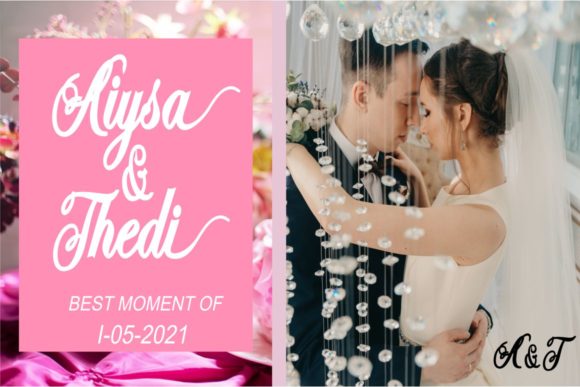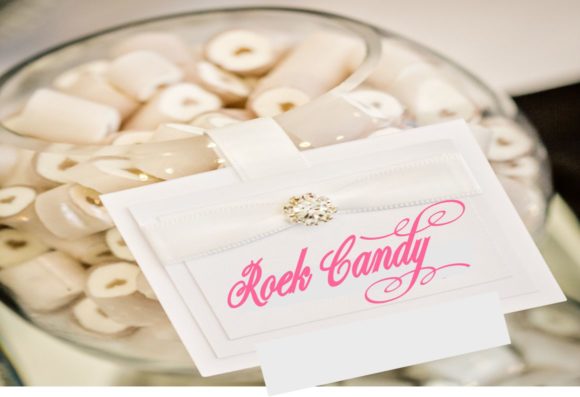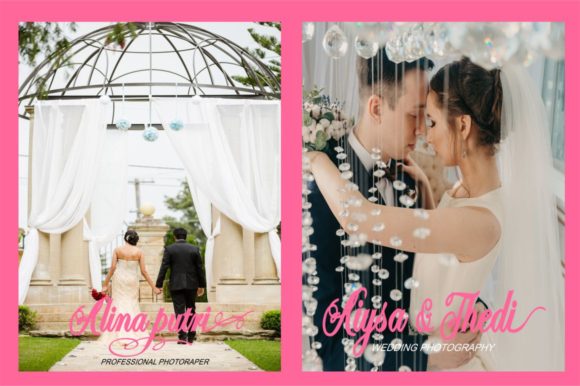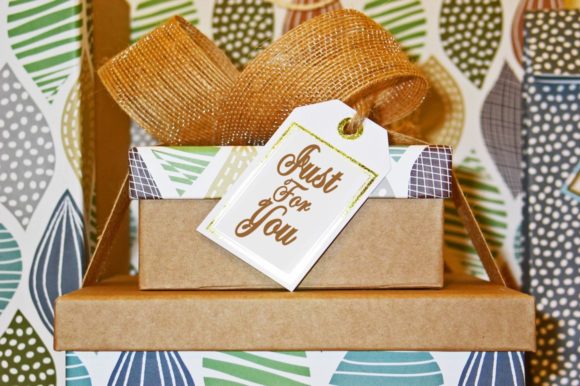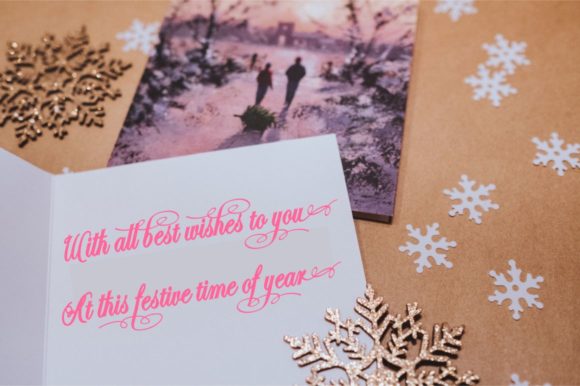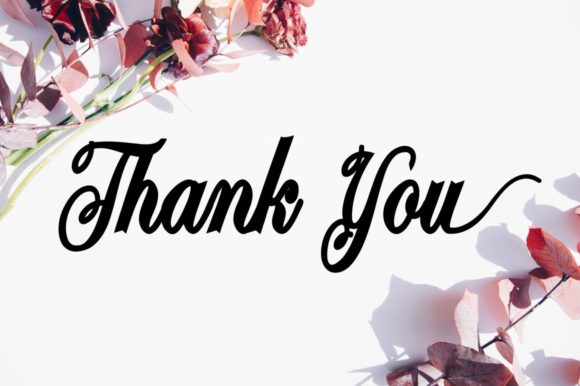
Introduction to Nike Ardila Font Font
Fonts play a crucial role in design, and the Nike Ardila Font font is a typeface that brings both character and versatility to any project. Whether you’re working on a branding project, a website, or a print design, the Nike Ardila Font font offers a unique style that can elevate your work.
Nike Ardila is gorgeous and elegant, but also authentic.
This versatile script font has a wide range of applications ranging from calligraphy art to branding and is guaranteed to add a personal touch to your next design .
Key Features of Nike Ardila Font Font
Why Choose Nike Ardila Font Font?
The Nike Ardila Font font is more than just a typeface – it’s a design tool that helps you communicate your message with style and clarity. Its unique character set and versatile design make it suitable for a wide range of applications, from elegant invitations to bold headlines.
With its carefully crafted letterforms and balanced proportions, the Nike Ardila Font font ensures readability and visual appeal across all mediums.
What makes Nike Ardila Font font special?
The Nike Ardila Font font stands out with its unique design, exceptional readability, and versatility across various design applications.